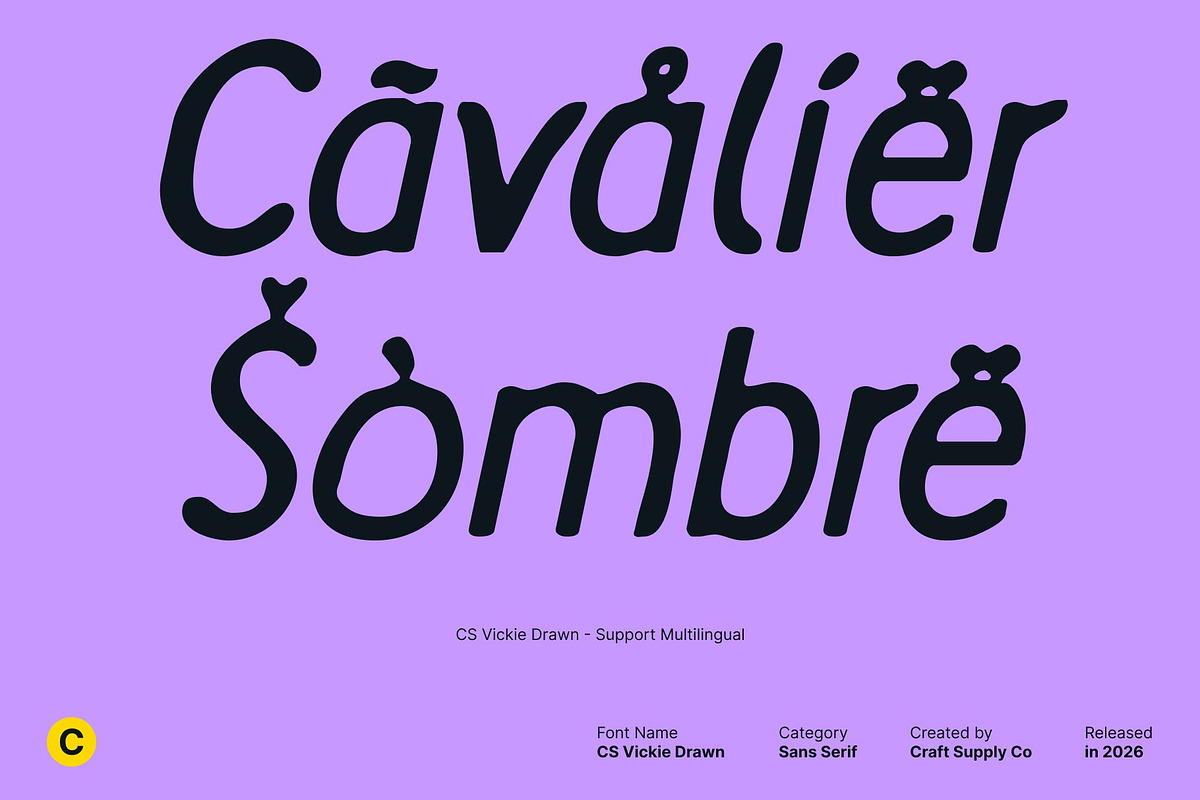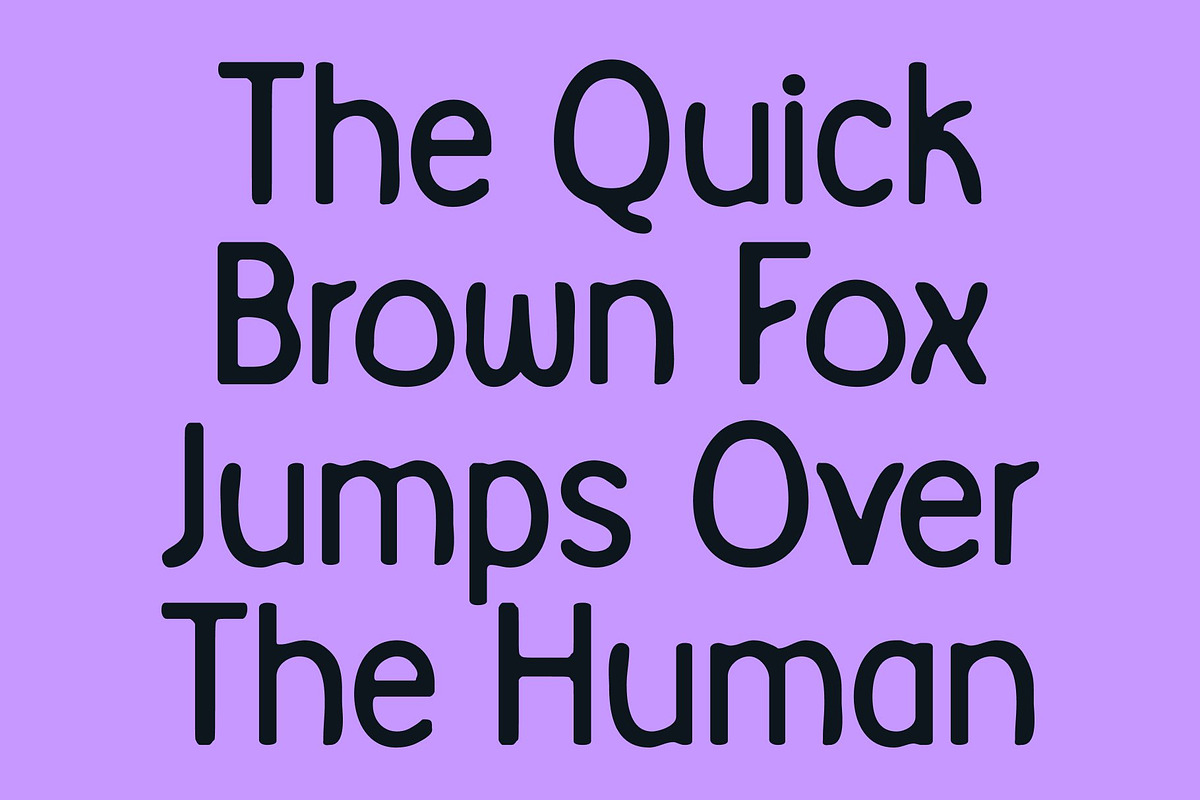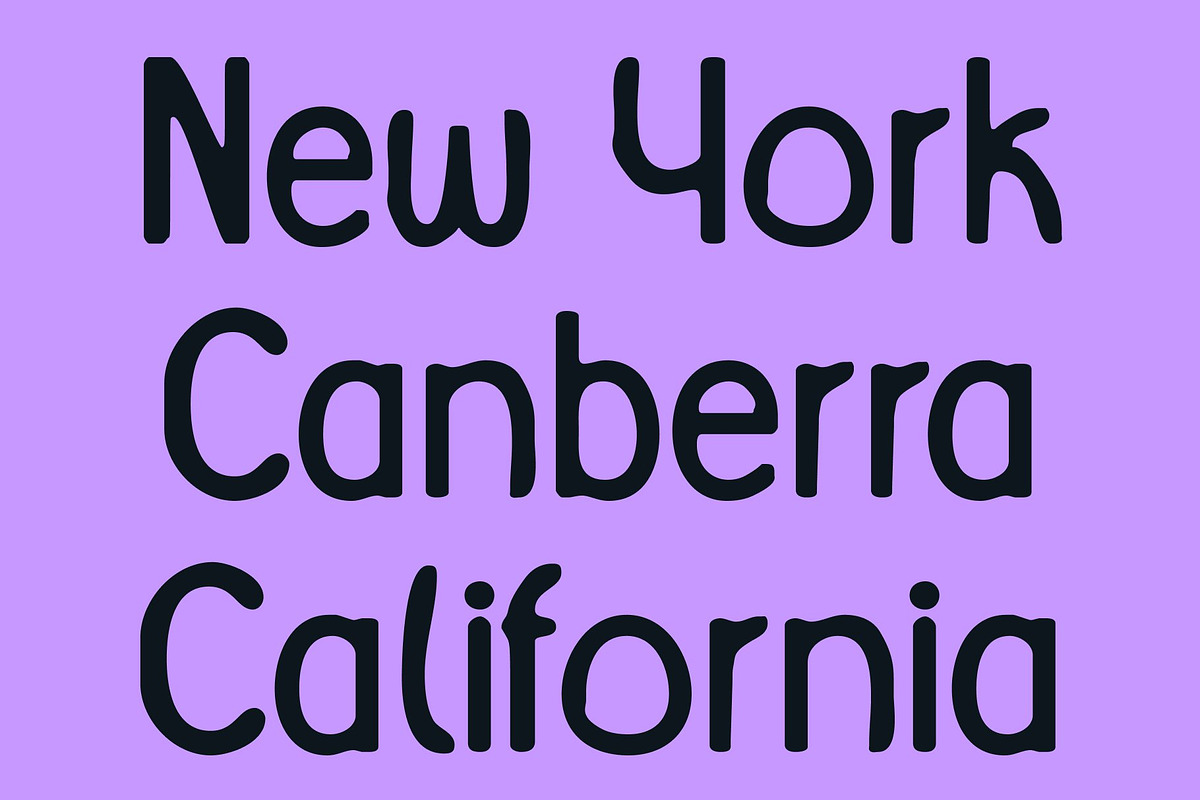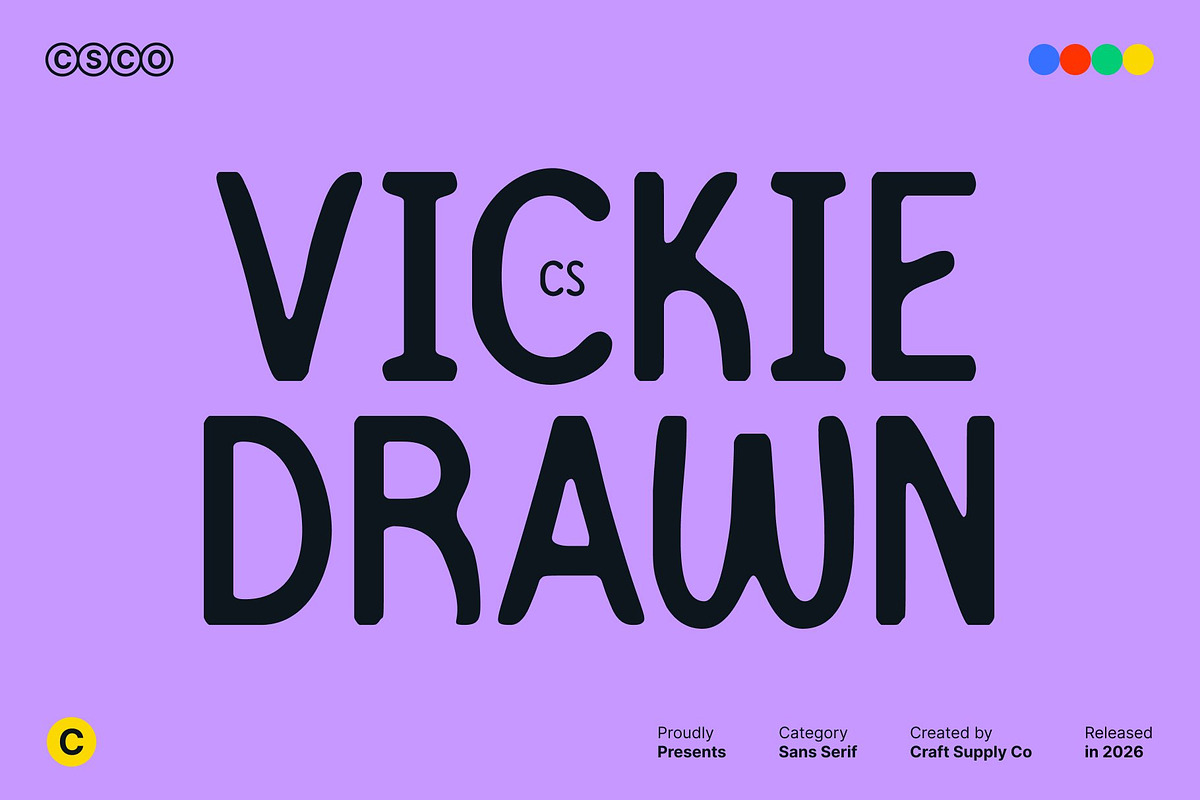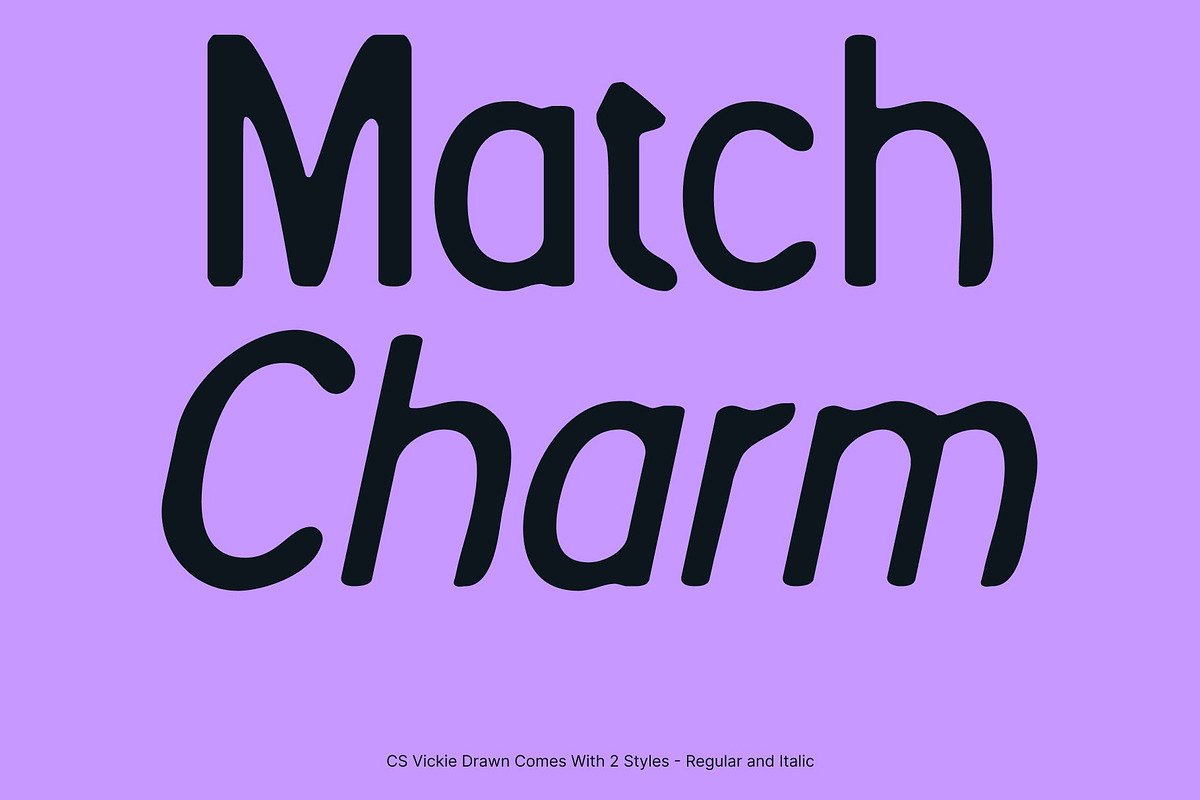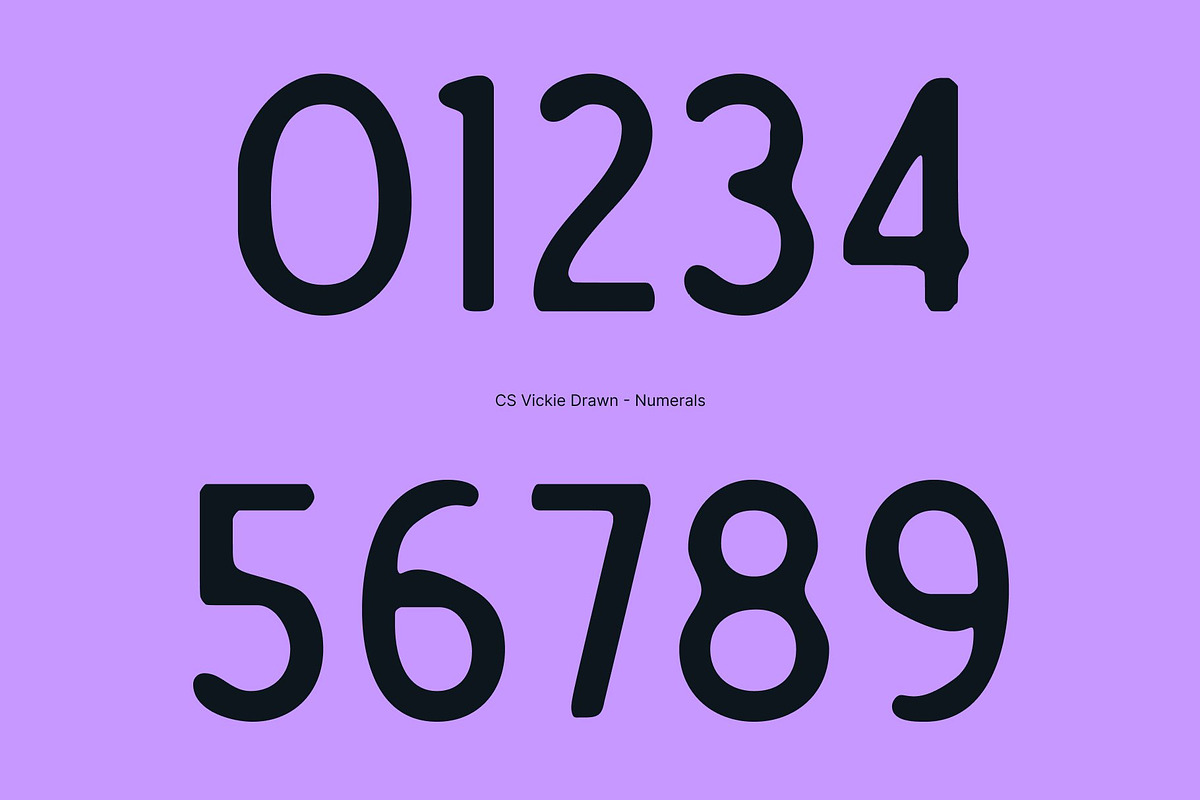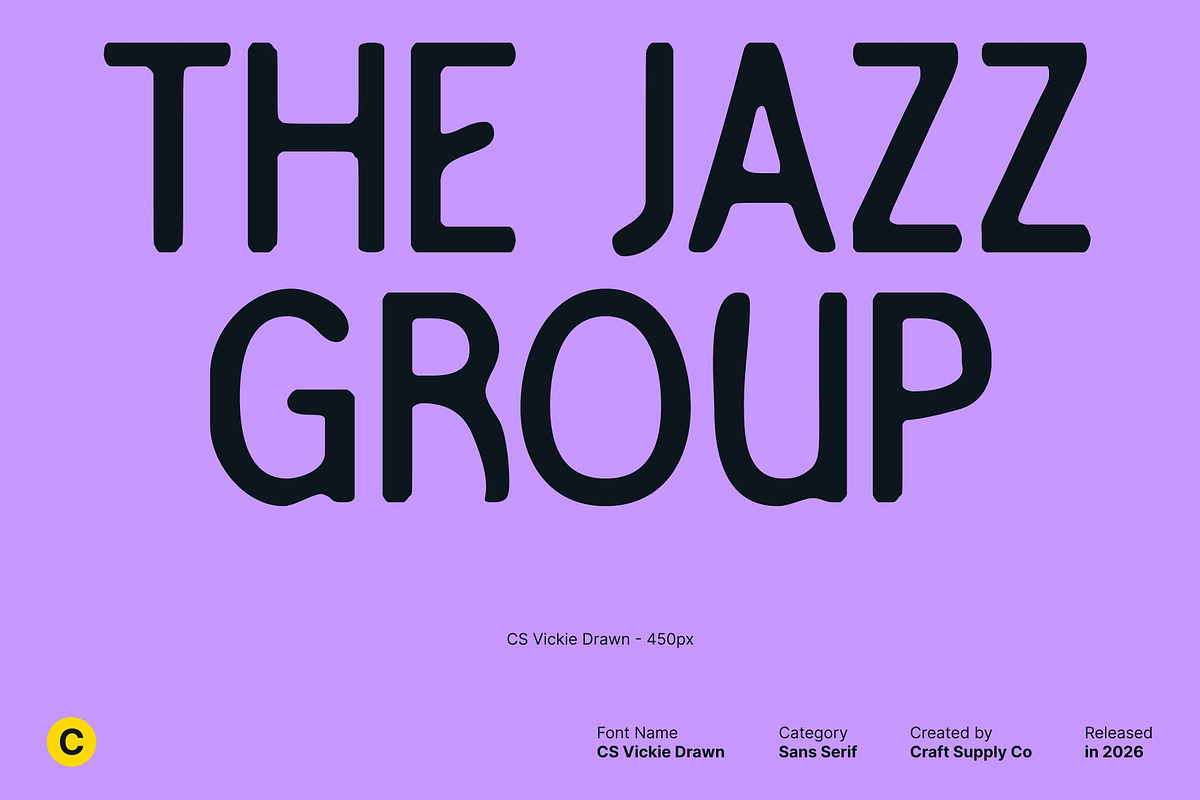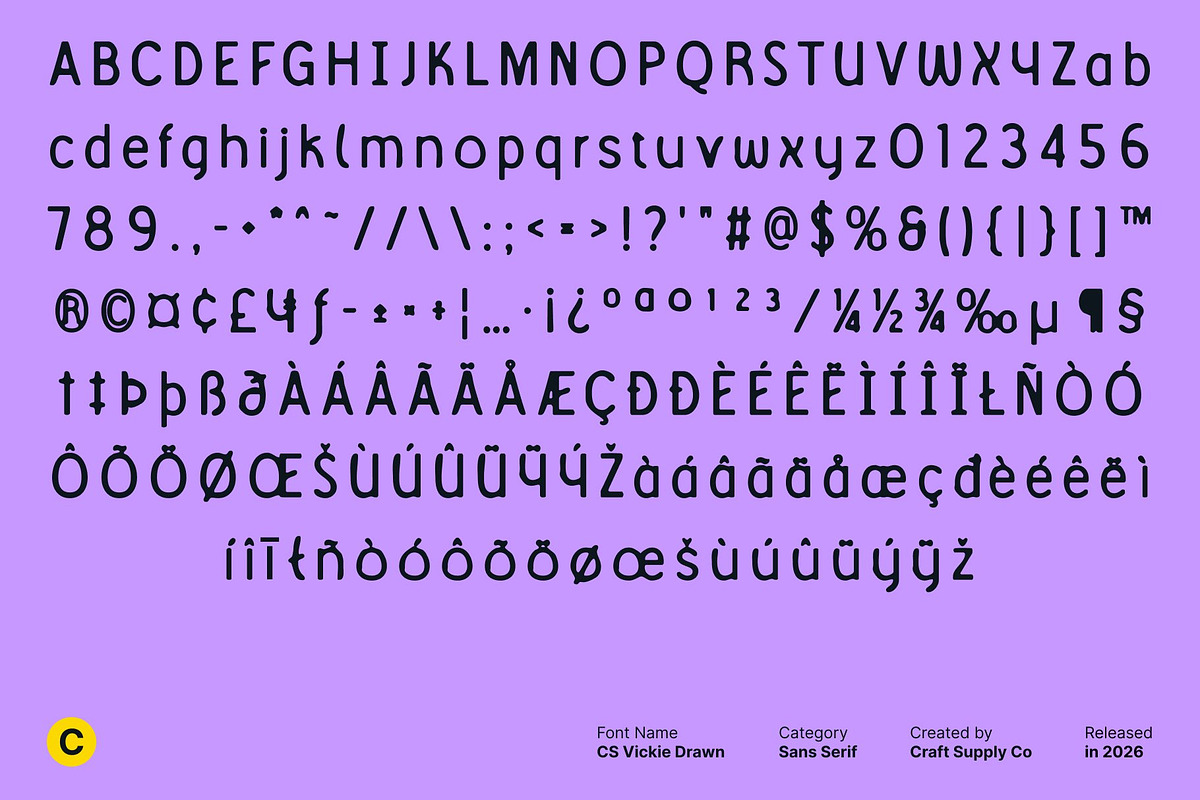
CS Vickie Drawn
CS Vickie Drawn – Clean Modern Sans Serif with Friendly Hand-Drawn Charm
Modern Design with Warm, Welcoming Personality This is a modern sans serif font created with a clean structure and an approachable spirit. Its smooth curves and soft geometric forms deliver a warm, friendly impression, while the drawn effect adds subtle organic texture. This balance brings together professionalism and charm, making the font feel clear, human, and inviting.
Playful Energy for Expressive Design Lighthearted details and gentle quirks give this font a playful edge without overpowering its clean foundation. The hand-drawn nuances help titles, headings, and logos feel more expressive and distinctive perfect for lifestyle branding, creative campaigns, and youth-focused visuals.
Clear Readability with Modern Simplicity Despite its friendly tone, this font maintains excellent readability. Balanced proportions, smooth strokes, and consistent spacing ensure clarity across display sizes and short text usage, making it reliable for both digital and print applications.
Perfect for Logos, Titles, and Creative Branding From logos and social media graphics to posters, packaging, and editorial layouts, this font adapts effortlessly. Its modern simplicity paired with handcrafted warmth makes it an ideal choice for designers seeking a clean sans serif font with personality and approachability.